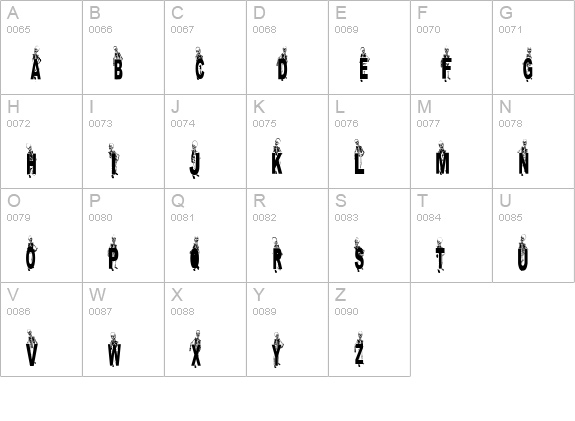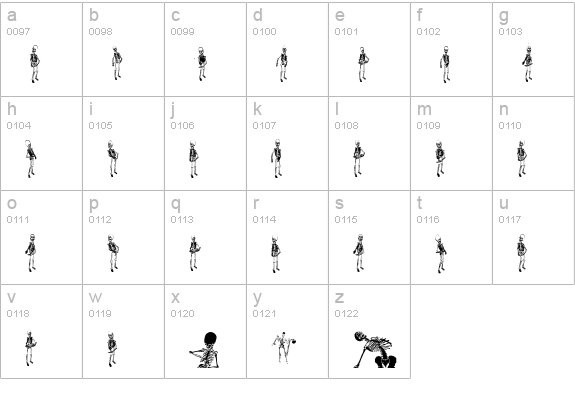
DANCING-DEAD Font Details
Introducing DANCING-DEAD font, a mesmerizing typographic masterpiece that effortlessly blends the grace of dance with the eerie allure of the undead. This font captures the essence of movement and rhythm, evoking a sense of fluidity and dynamism in every letterform. Designed with meticulous attention to detail, DANCING-DEAD font features a unique combination of sharp edges and flowing curves, creating a harmonious balance between the elegance of dance and the haunting presence of the undead. Each character is crafted with precision, showcasing intricate details that bring the font to life. Whether you're working on a Halloween-themed project, designing a spooky invitation, or simply seeking to add a touch of mystery to your designs, DANCING-DEAD font is the perfect choice. Its versatility allows it to be used in a variety of creative contexts, from branding and packaging to posters and digital artwork. And the best part? DANCING-DEAD font is freely available to download at FontsMarket.com. This means that you can effortlessly incorporate this captivating font into your designs without any hassle or cost. With just a few clicks, you can unleash the enchanting power of DANCING-DEAD font and take your creations to new heights. So, if you're ready to infuse your designs with a spellbinding combination of dance and the undead, look no further than DANCING-DEAD font. Download it for free at FontsMarket.com and let your creativity dance to a thrilling new beat.